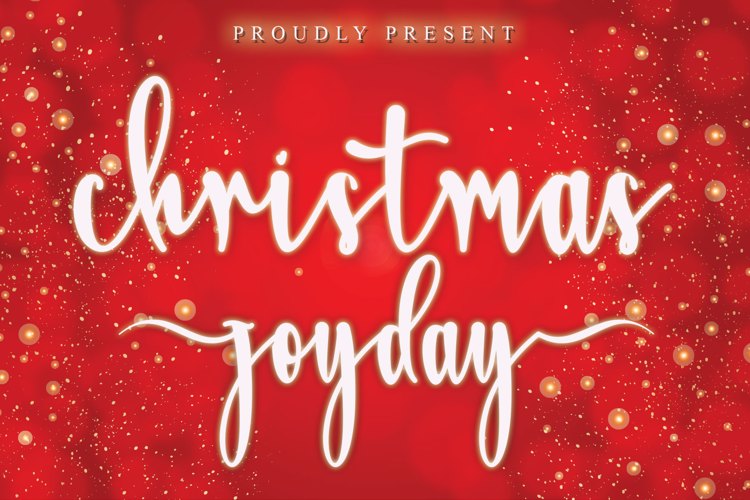
Christmas Joyday Font
Chistmas Joyday is a beautiful font themed around the theme of Christmas joy. It was designed with care so that the lines are very beautiful, pretty and very festive.
Christmas Joyday font is perfect for greeting cards, invitations, wedding invitations, product names, designs, etc.
Celebrate the joy of Christmas with the Christmas Joyday font!